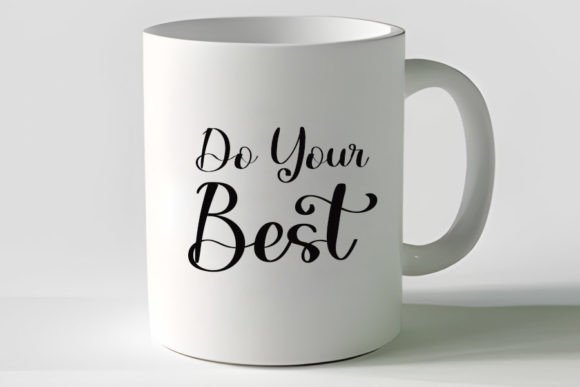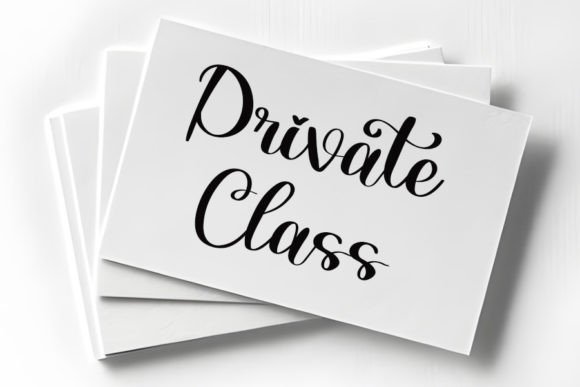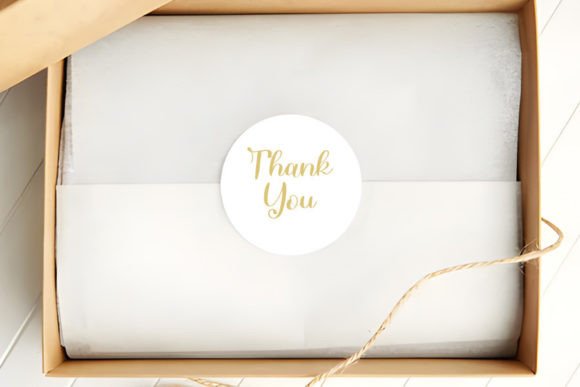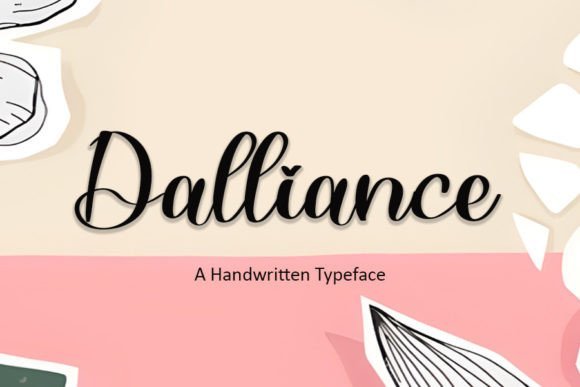
Introduction to Dalliance Font
Dalliance is a simple, joyful and ravishing handwritten font.
It has an adaptable style and it is ideal for a wide range of formal or informal designs It looks beautiful on a variety of designs requiring a personalized style, such as wedding invitations, thank you cards, weddings, greeting cards, logos and so on.